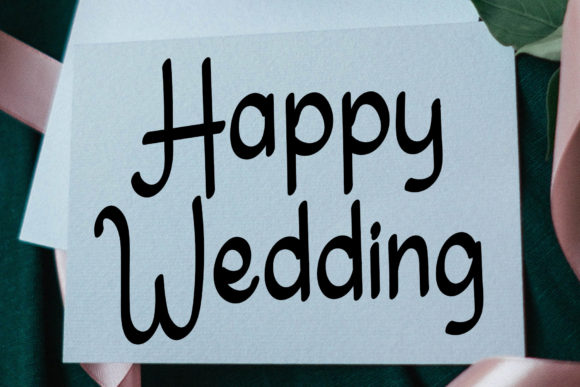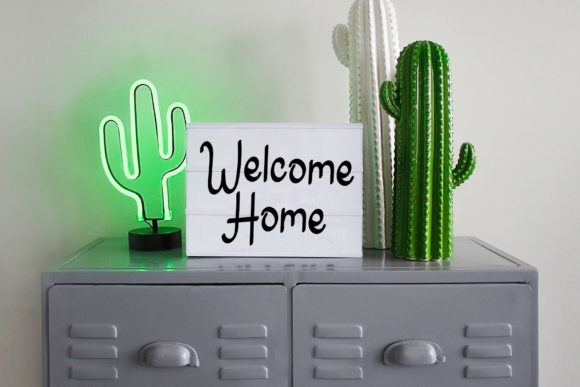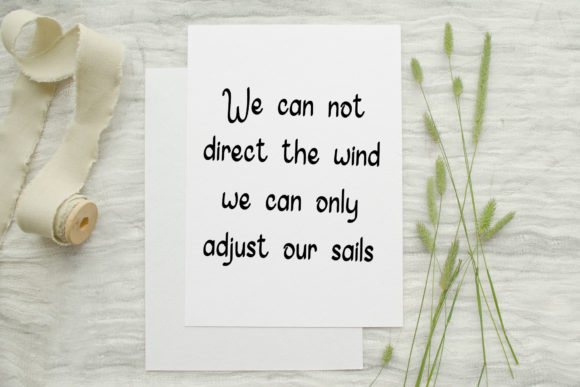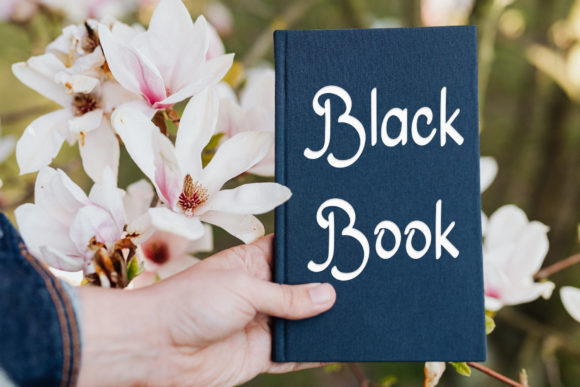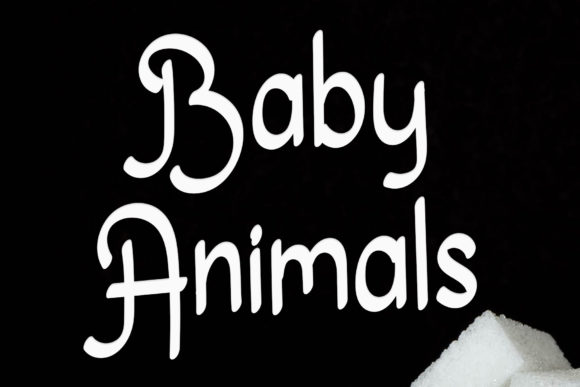
Baby Animals Font: Add a Playful Touch to Your Designs
Are you looking for a font that can add a playful and whimsical touch to your designs? Look no further than the Baby Animals Font. This unique and handwritten font is perfect for designers and crafters who want to create beautiful and eye-catching designs that stand out from the crowd.
What is Baby Animals Font?
Baby Animals Font is a one-of-a-kind, handwritten font that is designed to bring a sense of playfulness and fun to your designs. With its unique and quirky style, this font is perfect for a wide range of design projects, from wedding invitations and greeting cards to billboards, logos, and business cards.
Key Features of Baby Animals Font
- Unique and Playful Style: Baby Animals Font has a distinctive and playful style that is sure to grab attention and add a touch of whimsy to your designs.
- Handwritten Touch: This font has a beautiful, handwritten touch that makes it perfect for designs that require a personal and human feel.
- Versatile: Baby Animals Font is versatile and can be used for a wide range of design projects, from wedding invitations and greeting cards to billboards, logos, and business cards.
- Easy to Read: Despite its playful style, Baby Animals Font is easy to read and understand, making it perfect for designs that require a clear and concise message.
Uses of Baby Animals Font
Baby Animals Font is a versatile font that can be used for a wide range of design projects, including:
- Wedding Invitations: Add a playful and romantic touch to your wedding invitations with Baby Animals Font.
- Greeting Cards: Create beautiful and eye-catching greeting cards for special occasions like birthdays, holidays, and anniversaries.
- Billboards: Use Baby Animals Font to create eye-catching billboards that grab attention and leave a lasting impression.
- Logos: Create unique and memorable logos for your business or brand with Baby Animals Font.
- Business Cards: Add a playful and professional touch to your business cards with Baby Animals Font.
Benefits of Using Baby Animals Font
Using Baby Animals Font in your designs can have several benefits, including:
- Unique and Eye-Catching Designs: Baby Animals Font can help you create unique and eye-catching designs that stand out from the crowd.
- Emotional Connection: The playful and whimsical style of Baby Animals Font can help create an emotional connection with your audience.
- Versatility: Baby Animals Font is versatile and can be used for a wide range of design projects.
- Easy to Read: Baby Animals Font is easy to read and understand, making it perfect for designs that require a clear and concise message.
Tips for Using Baby Animals Font
Here are some tips for using Baby Animals Font in your designs:
- Use it for Headings and Titles: Baby Animals Font is perfect for headings and titles, where you want to grab attention and add a touch of whimsy.
- Pair it with Other Fonts: Pair Baby Animals Font with other fonts to create a unique and eye-catching design.
- Use it for Body Text: Baby Animals Font is easy to read and can be used for body text, especially for designs that require a playful and informal tone.
- Experiment with Colors and Textures: Experiment with different colors and textures to add depth and interest to your designs.
Baby Animals Font is a unique and playful handwritten font that can add a touch of whimsy and fun to your designs. With its versatile style and easy-to-read format, this font is perfect for a wide range of design projects, from wedding invitations and greeting cards to billboards, logos, and business cards. Whether you’re a designer or crafter, Baby Animals Font is a great addition to your font collection.